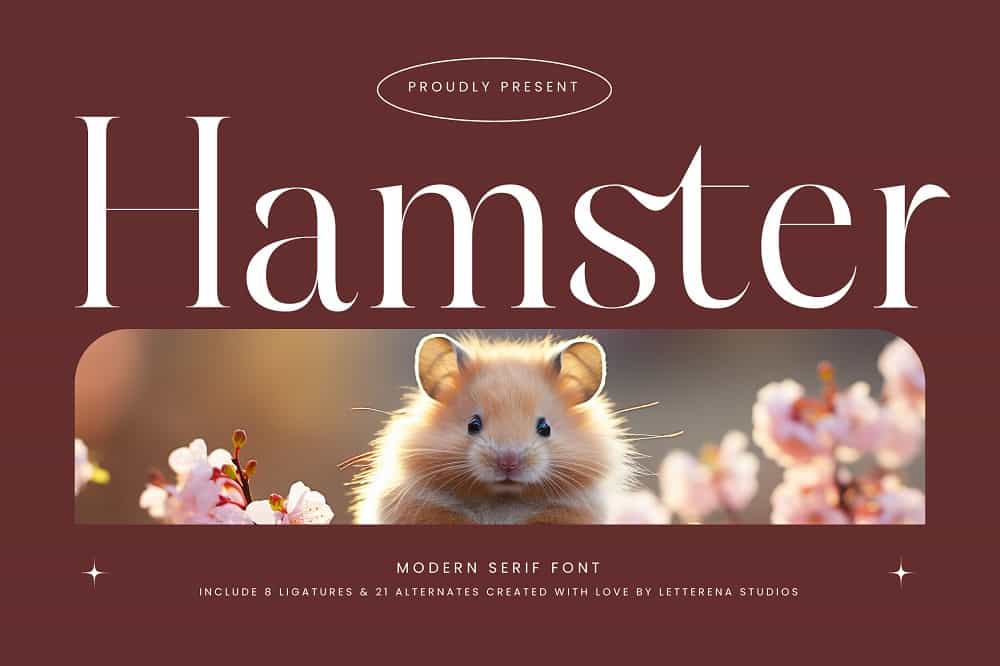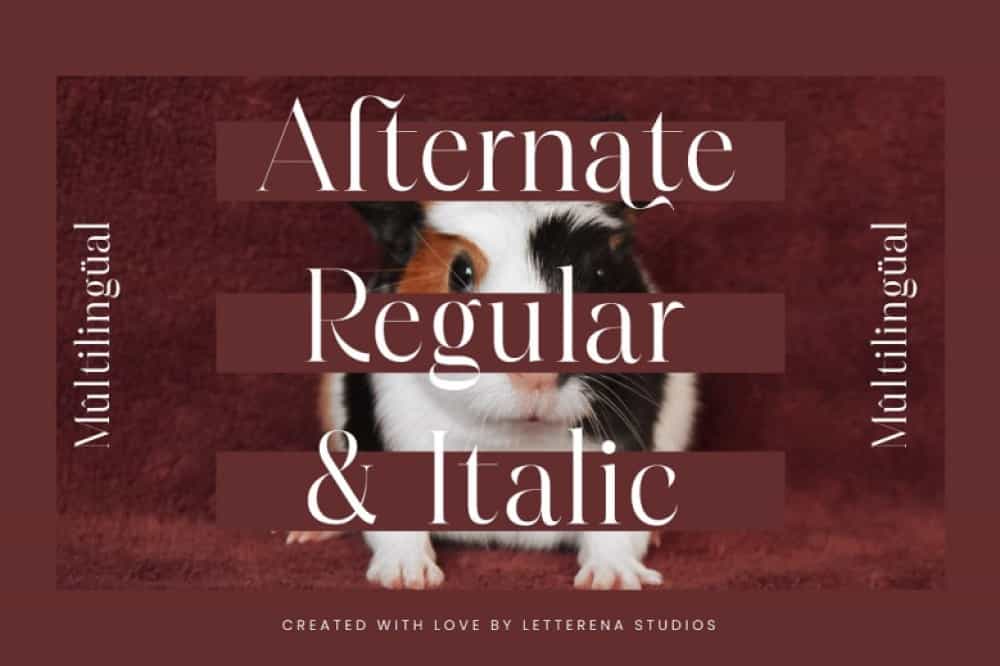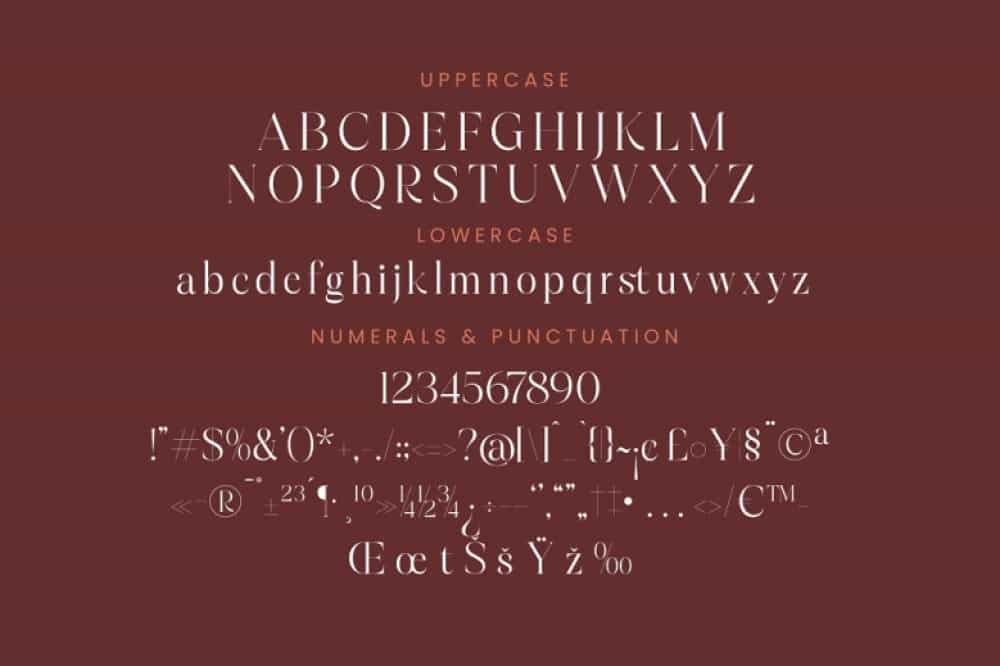
Hamster is a modern serif font, suitable for any projects such as: Logos, branding, home and living, packaging, mugs, quotes, posters, shopping bags, t-shirts, book covers, name cards, invitation cards, greeting cards, labels, and all of your other luxury and elegant projects that require a touch of Luxury Serif font.